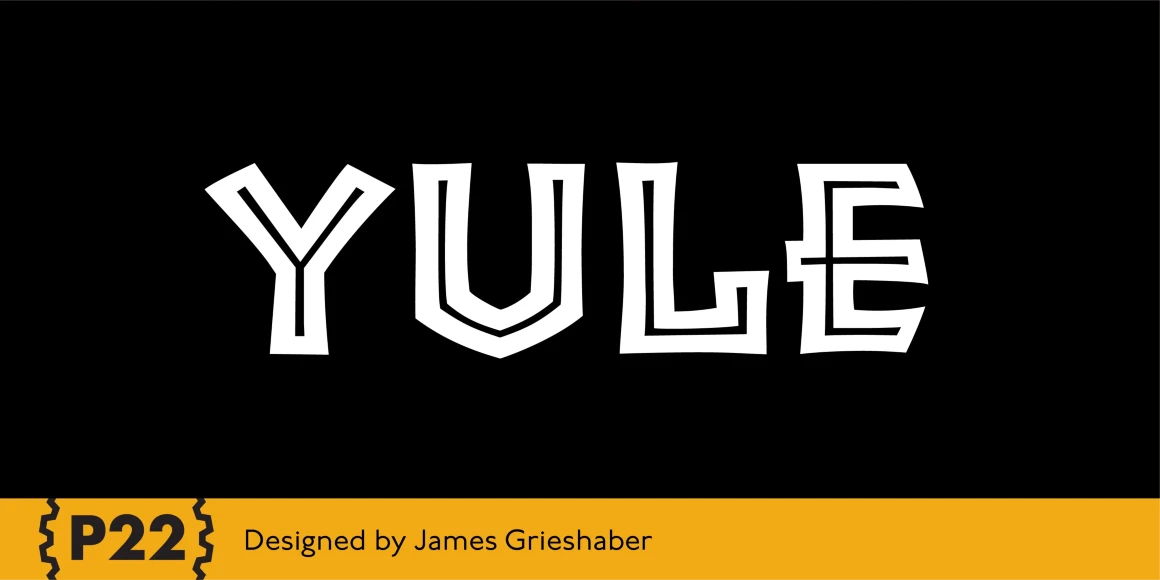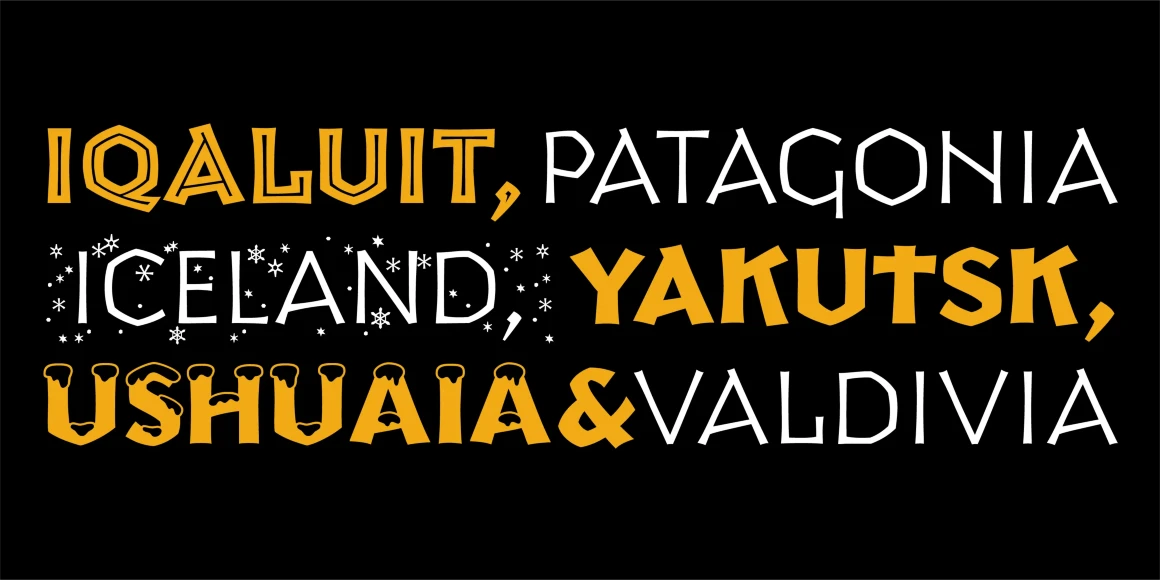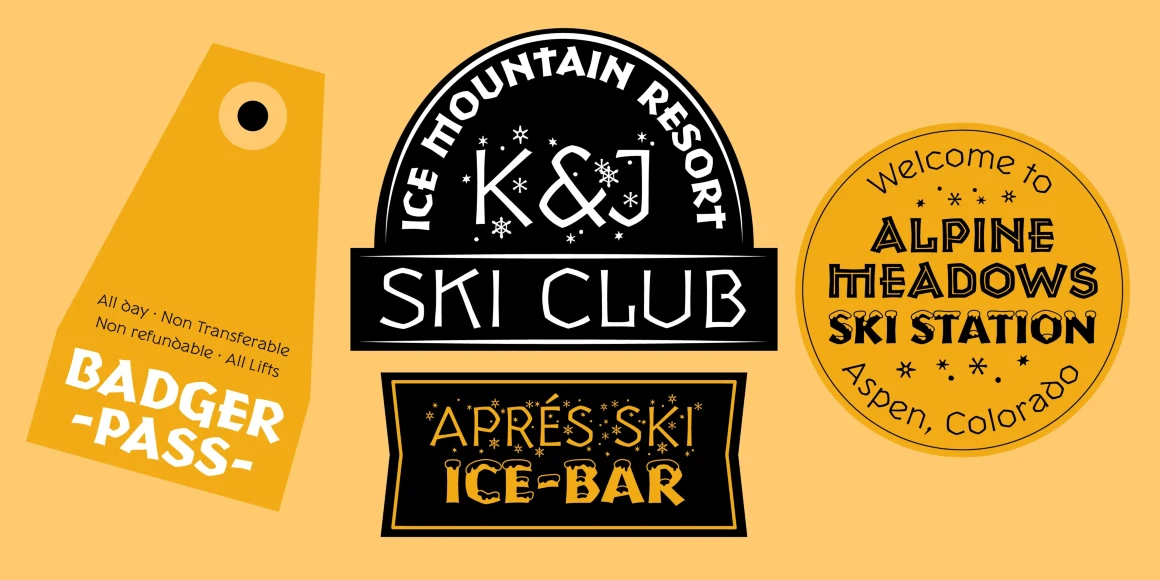
Yule
P22 Yule is a series of display fonts inspired by a mélange of ancient inscriptional writing, with visual references to Anglo-Saxon, Celtic, Medieval, and even a bit of ancient Greek and roman letterforms. Yule is exotic yet familiar and evocative of winter holidays. It has an Alpine look, lending itself to the thoughts of chalets and fondue. Yule Heavy Snow is blanketed in the white stuff, while Yule Light Flurries is dusted with snowflakes. With the addition of the Klein style, which includes a lowercase, Yule becomes infinitely more usable. The Klein variations can work well as an alternative to Neuland when you need the versatility of a lowercase.
Designed by James Grieshaber